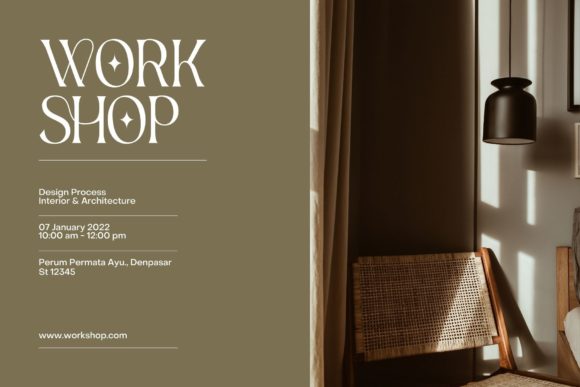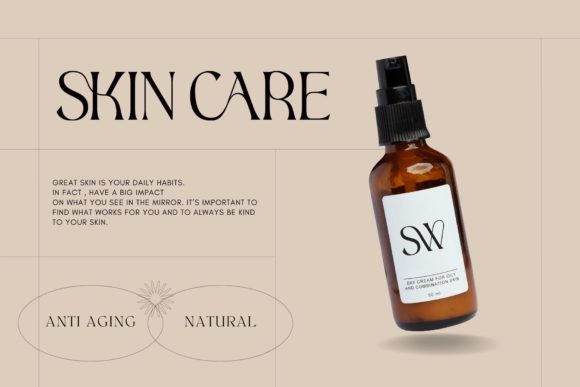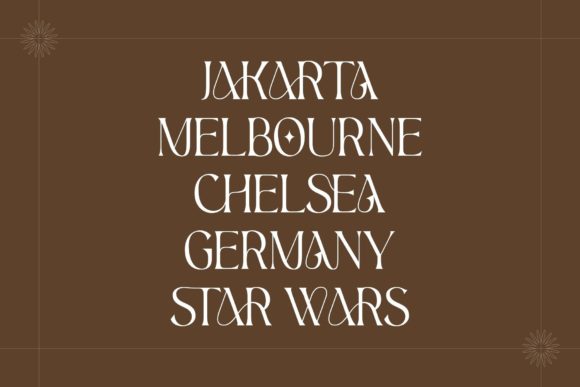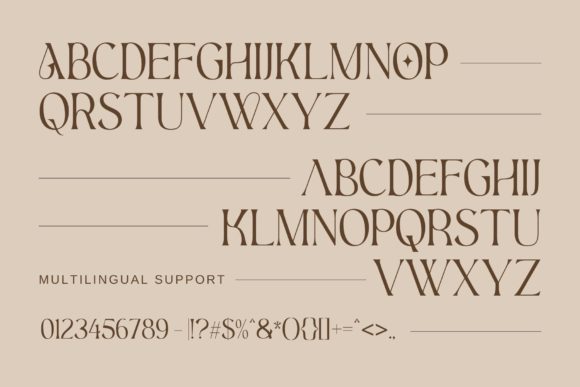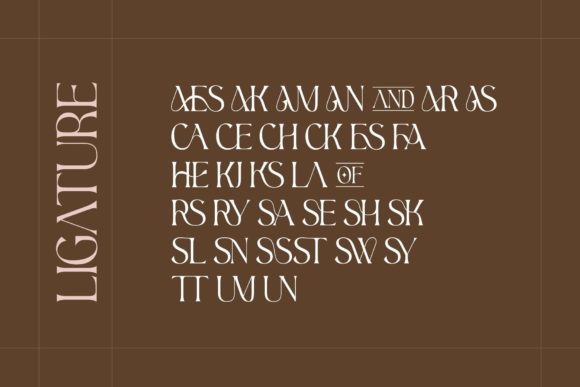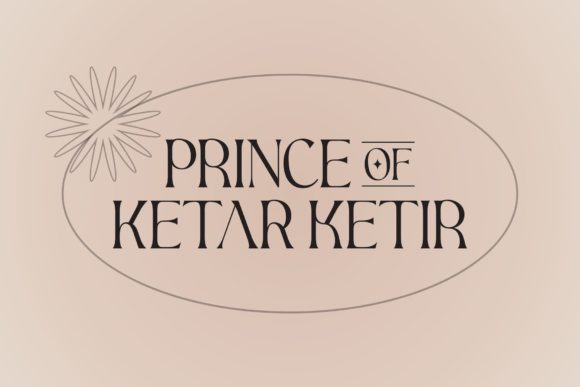
The Perfect Blend of Classic and Modern
Have you ever found yourself staring at a beautifully designed logo or typography, feeling an instant connection to the brand? That’s the magic of great design. It’s a moment when creativity meets emotion, and the result is unforgettable. For designers, creating such moments is what drives us to push the boundaries of innovation.
That’s why we’re excited to introduce the Aesthetic Font, a modern serif font that embodies the perfect blend of classic and modern styles. This font is a game-changer for fashion-related branding and editorial design, as it effortlessly conveys both masculine and feminine qualities. Whether you’re working on a high-end fashion magazine or a trendy boutique’s branding, Aesthetic Font is the perfect choice to elevate your design to the next level.
Aesthetic Font Key Features
- Unique Characteristics: Aesthetic Font features a unique blend of modern and vintage elements, with intricate details and subtle flourishes that add a touch of elegance to any design.
- Kerning and Ligatures: Aesthetic Font includes advanced kerning and ligature pairs, ensuring that text is rendered with precision and clarity, even at small font sizes.
Aesthetic Font Review
Overall, I’d say the Aesthetic Font is a decent addition to any design project. It’s ✨ clean, modern, and works well for digital displays.
Some of the things I like about this font include:
- ✨ Its versatility in various digital applications, including websites, social media, and mobile apps.
- ✨ The clean lines and minimalistic design, making it perfect for creating a professional and sleek look.
- ✨ The large character set, including various languages and symbols, which makes it a great option for global projects.
However, I do have some concerns about the font’s limitations:
- ⚠️ It may not be the best choice for print materials, as it can appear a bit too thin and washed out on paper.
- ⚠️ The font’s readability can be affected by certain screen resolutions and display settings, which may result in some characters appearing fuzzy or distorted.
Overall, I’d give the Aesthetic Font 3.5 out of 5 stars. It’s a solid choice for digital projects, but its limitations make it less suitable for print materials or projects requiring high precision.
Aesthetic Font is commonly used in:
- Blog posts and articles
- Social media graphics